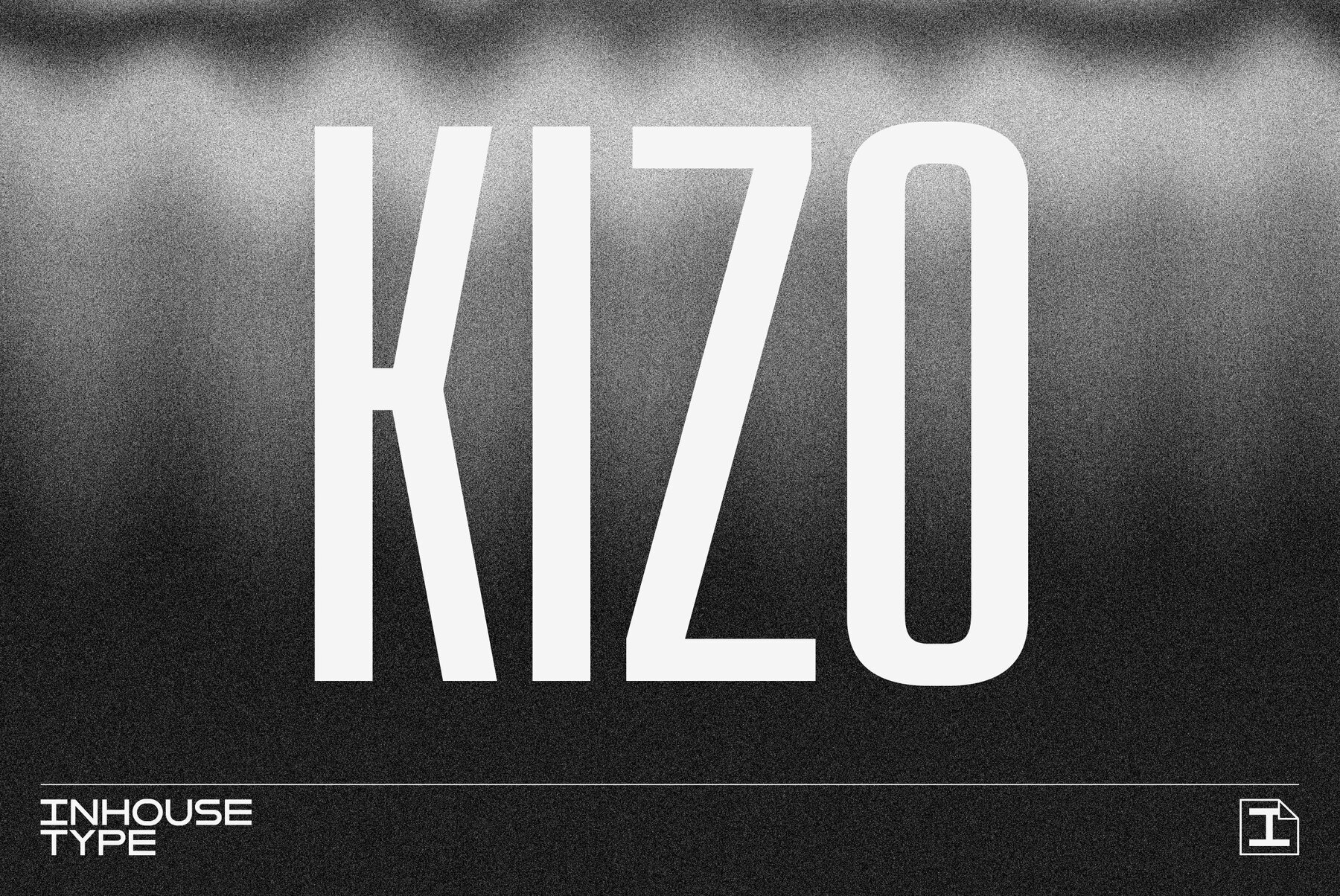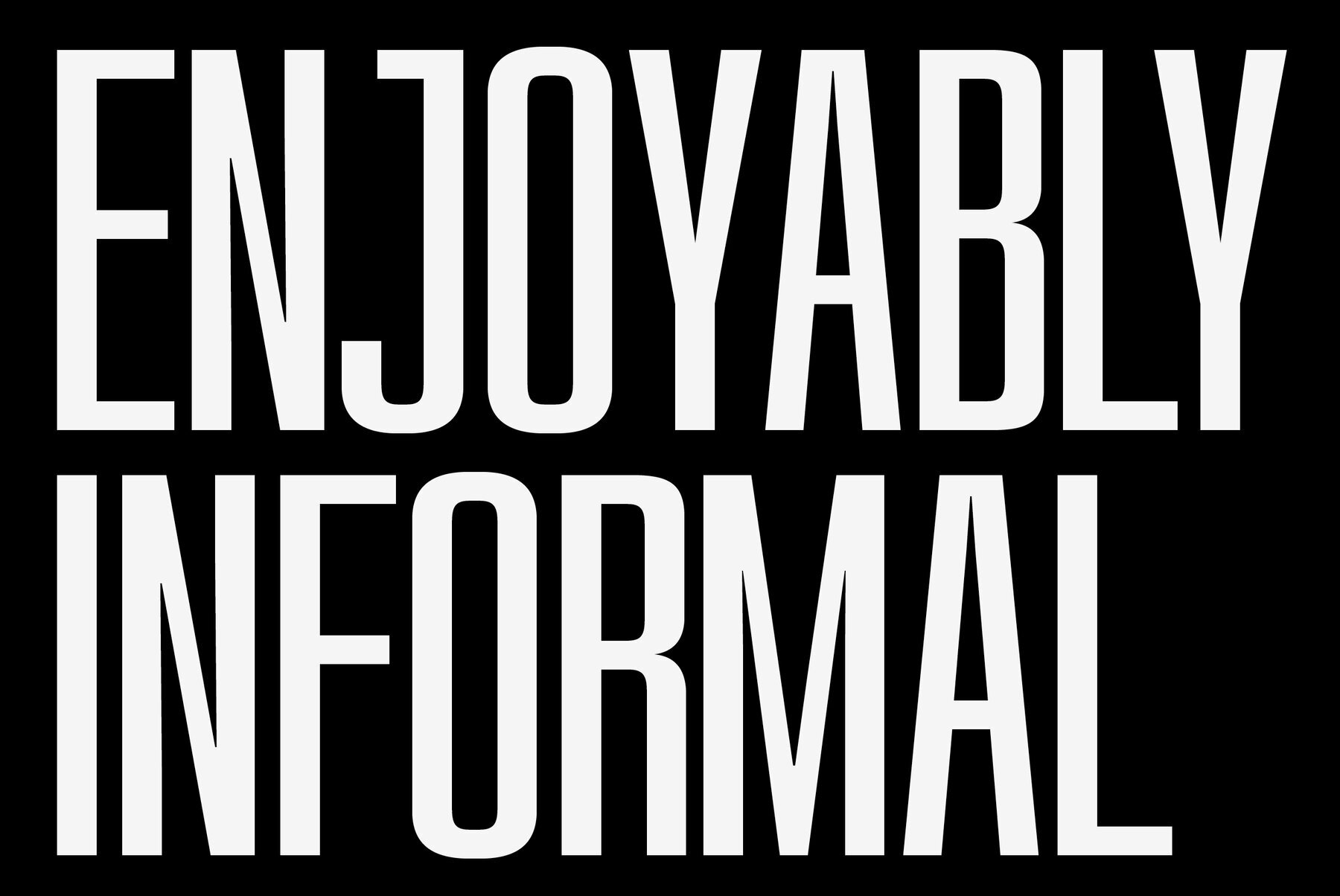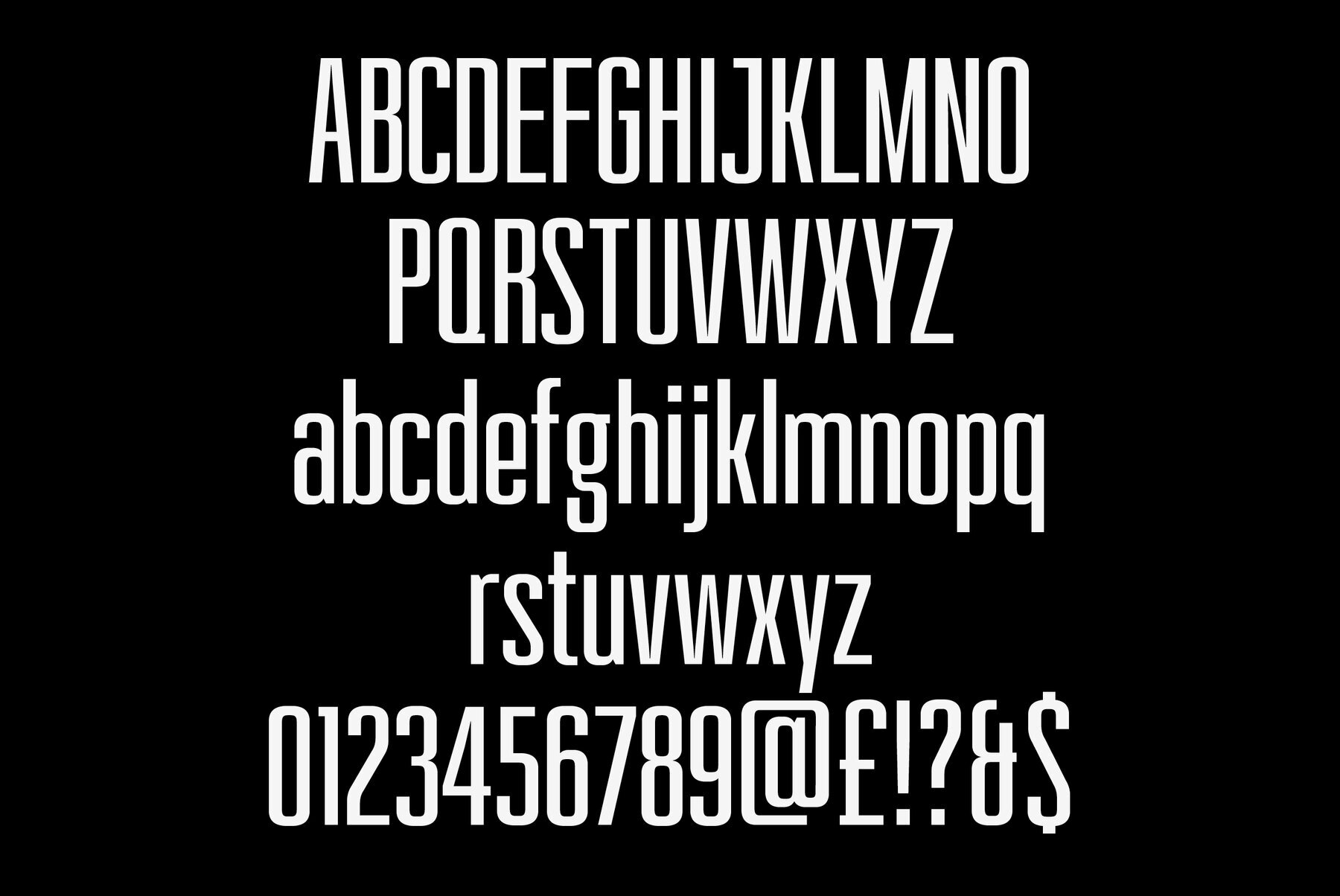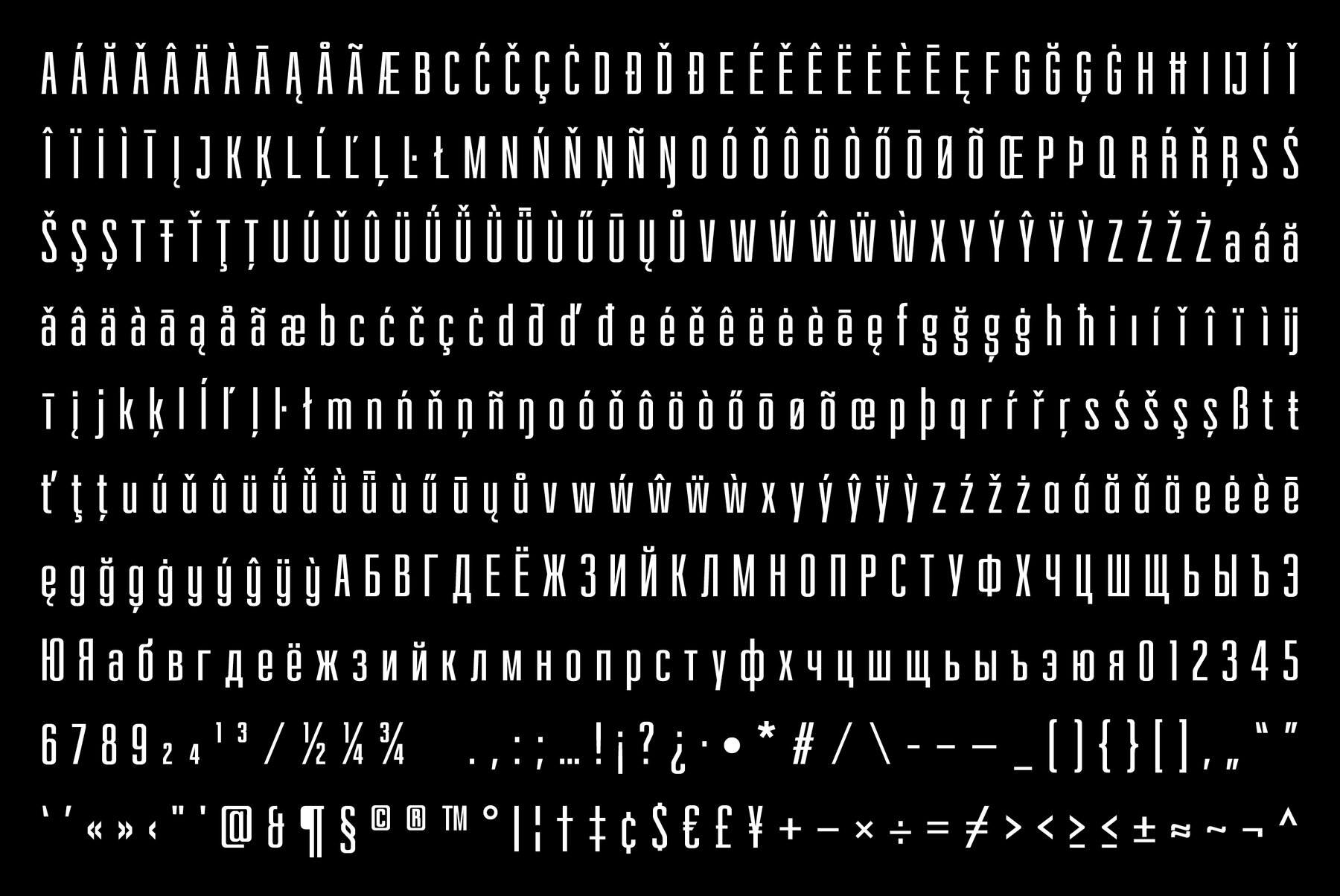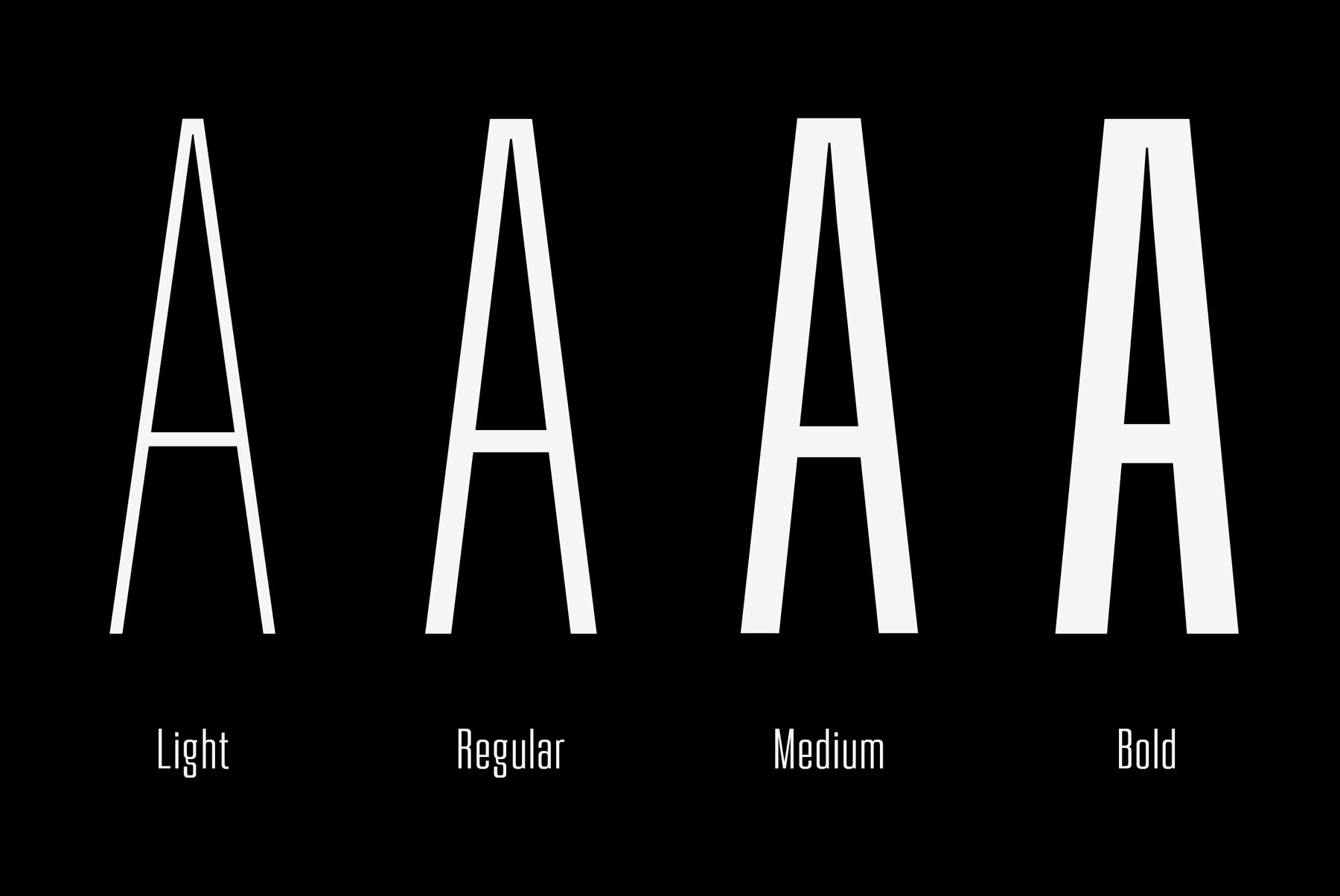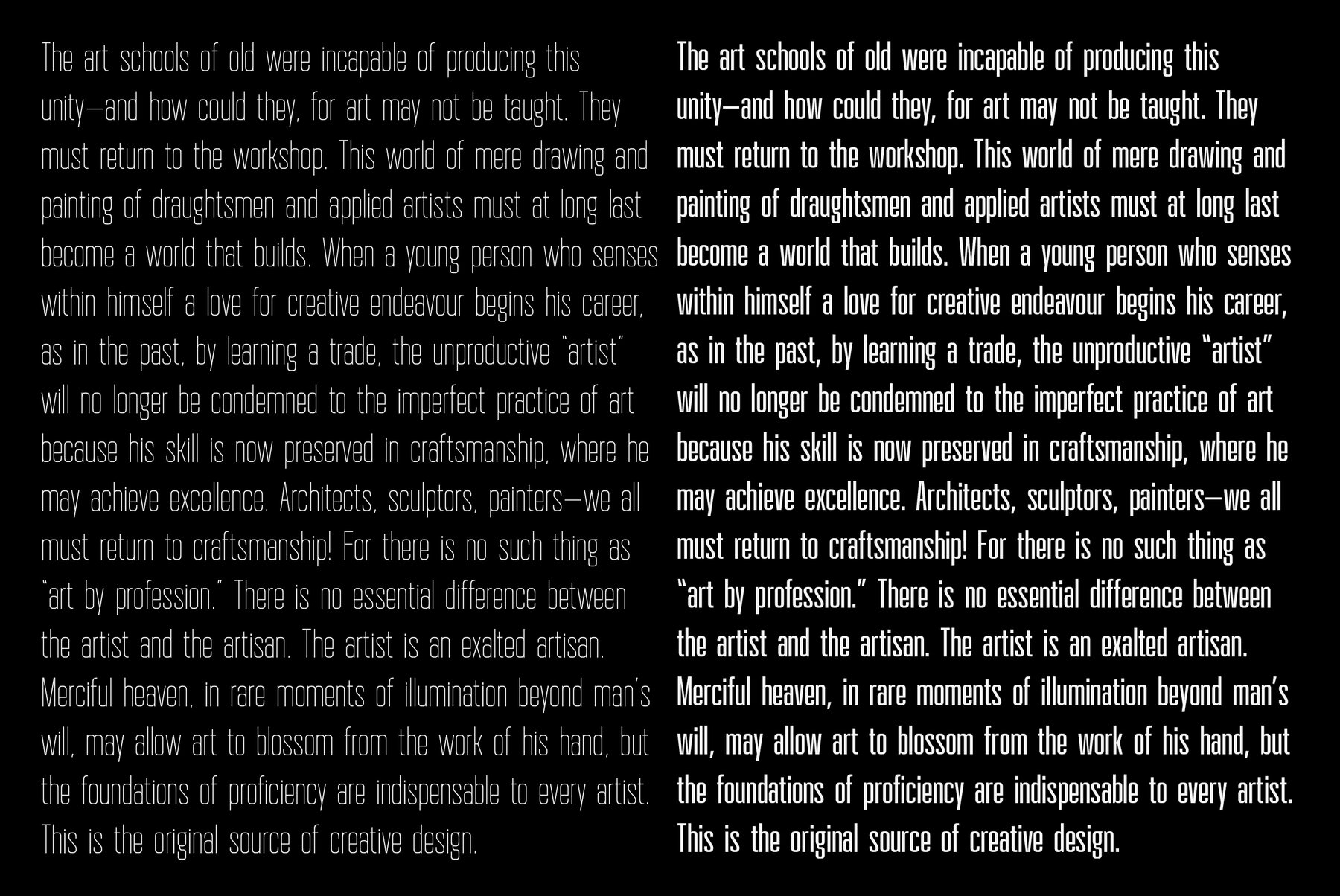
Kizo Font
Kizo is a geometric condensed sans serif. Inspired by the urban modernist architecture, the font is functional, rational, utilitarian and subtle in its nature. Created for display use, Kizo offers a number of alternative characters. Build for maximum clarity and with attention to detail, Kizo features ink traps. Details include 4 weights, 434 characters and OpenType features.